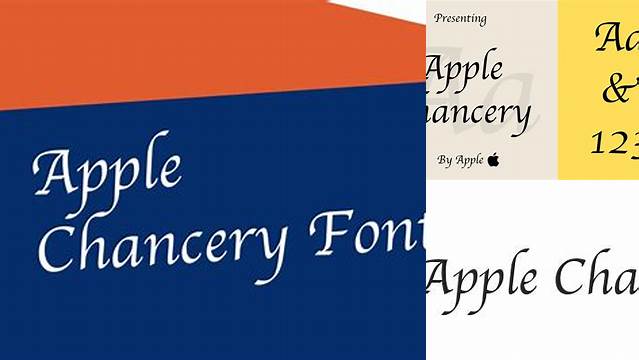
Hey guys! If you're on the hunt for a classic, elegant typeface, you've probably stumbled upon the Apple Chancery font. It's a beautiful script font that's been around for ages, and it's perfect for adding a touch of sophistication to your designs. The good news? You can find the Apple Chancery font family free download! In this article, we'll dive deep into everything you need to know about this amazing font. We'll cover its history, its uses, and most importantly, how to get your hands on it without spending a dime. So, grab your coffee, settle in, and let's get started on this font journey together. The Apple Chancery font is more than just a typeface; it's a piece of digital art that can transform your documents and designs. From its graceful curves to its timeless appeal, this font has something to offer everyone. Understanding the nuances of the Apple Chancery font will not only elevate your designs but also give you a deeper appreciation for typography. Get ready to unleash your creativity with this font, and let's explore its many facets!
What is the Apple Chancery Font?
Let's start with the basics, shall we? The Apple Chancery font is a calligraphic or script typeface designed by Susan Kare for Apple Computer in 1984. It was originally created for the Macintosh operating system and has since become a beloved font for its elegant, handwritten appearance. Its design is based on the Chancery script, a style of writing from the Renaissance period. The font is characterized by its flowing strokes, connected letters, and a certain old-world charm. It's the perfect choice if you're looking to add a touch of classic elegance to your work. This font family is often associated with sophistication and artistic flair, making it ideal for everything from invitations to logo designs. Its versatility allows it to be used in a wide range of projects. Many people also admire the font's readability, which helps ensure that your message is conveyed effectively. Think of it as the digital equivalent of a handwritten note, adding a personal touch to your digital world. The history of Apple Chancery is as interesting as the font itself. Designed by Susan Kare, known for her work in creating the original Macintosh icons, the font quickly became a signature element of Apple's early visual identity. It's a testament to how a well-designed font can become synonymous with a brand. Choosing the Apple Chancery font means you are embracing a piece of design history. It's a choice that speaks volumes about your appreciation for design. Understanding the heritage of this font enhances your appreciation for its beauty.
Key Features of Apple Chancery
Let's delve into what makes the Apple Chancery font so special. First off, the font's most striking feature is its handwritten style. This gives it a unique, personal touch that sets it apart from many other fonts. The connected letters create a sense of flow and harmony, making the text easy to read. The elegant curves and subtle variations in stroke thickness add to its visual appeal. The font includes both uppercase and lowercase characters, as well as numerals and basic punctuation. This complete character set makes the font suitable for a variety of uses. This allows you to create complete and professional-looking documents. The design is inspired by the Chancery script, which means you're getting a font rooted in tradition. Despite its traditional roots, the font feels fresh and modern when used correctly. It's a perfect combination of classic and contemporary. One of the best features of Apple Chancery is its versatility. It can be used in a variety of contexts, from invitations to logos. In addition, it is suitable for both print and digital applications, making it a practical choice. Its adaptability allows you to integrate it into a broad range of projects. Consider how the font's distinct character can enhance your designs. When using the Apple Chancery font, you have access to a timeless typeface that can transform any text. This makes it a valuable asset for your design toolkit. Its aesthetic appeal goes beyond just the look; it is about conveying a sense of artistry and sophistication.